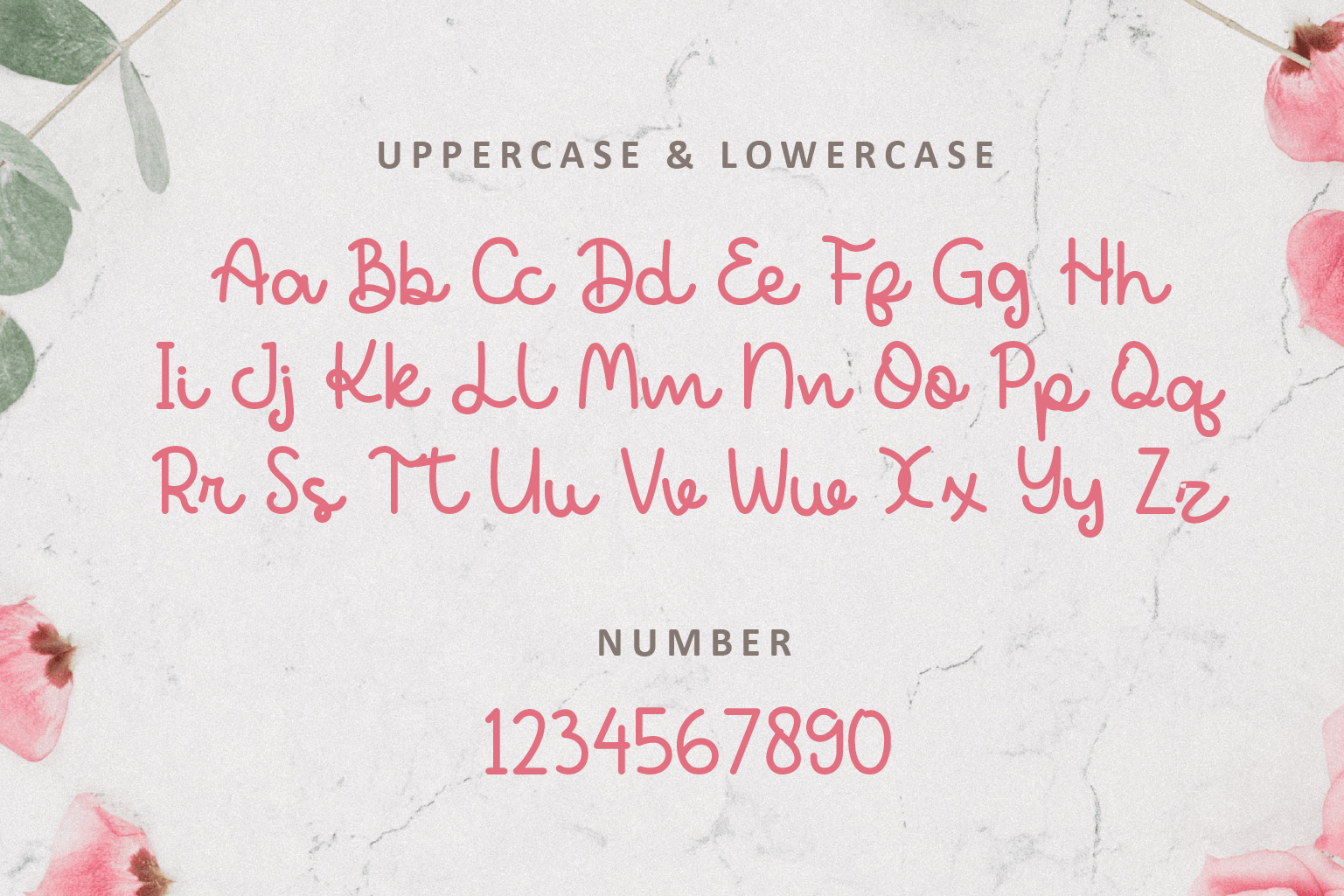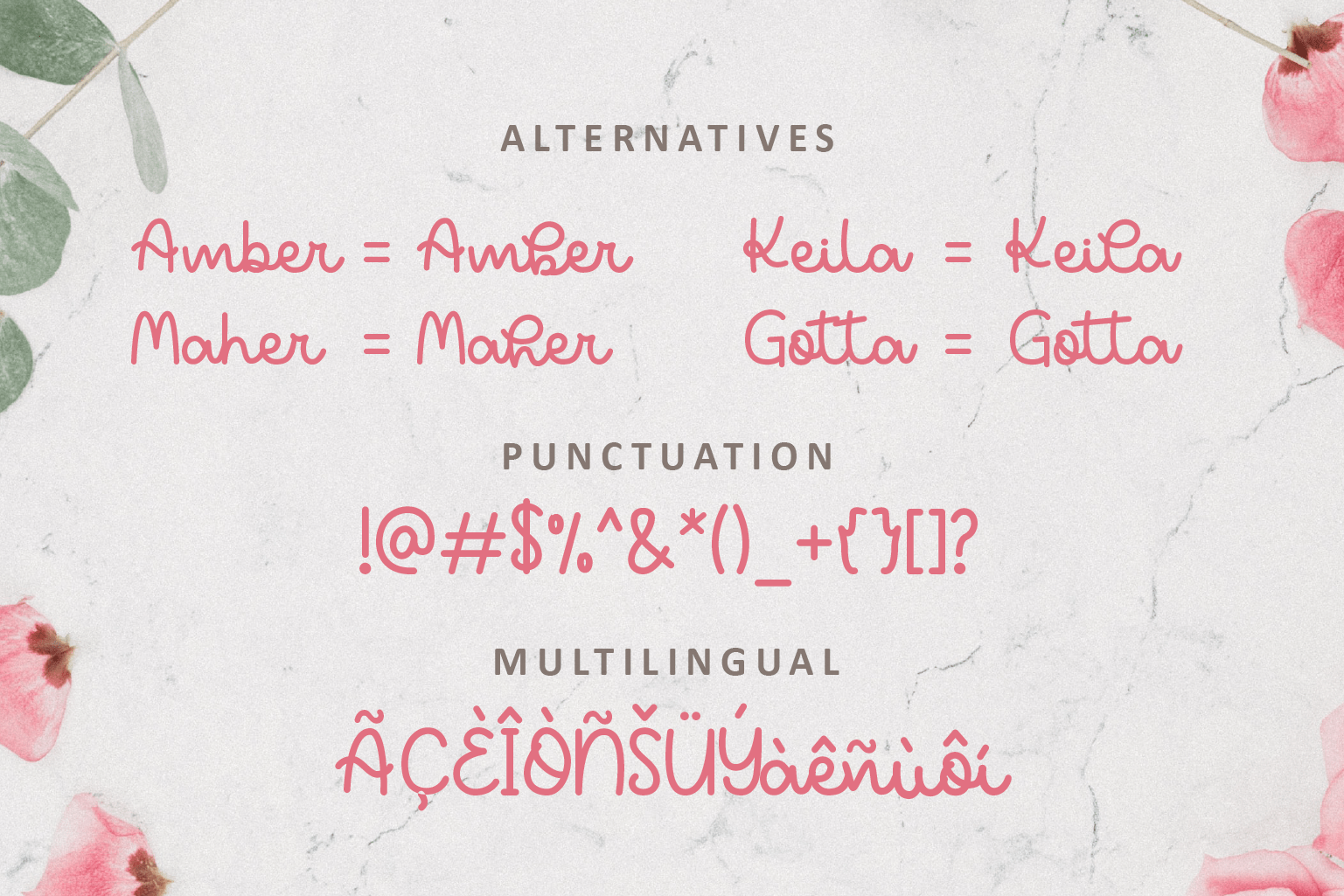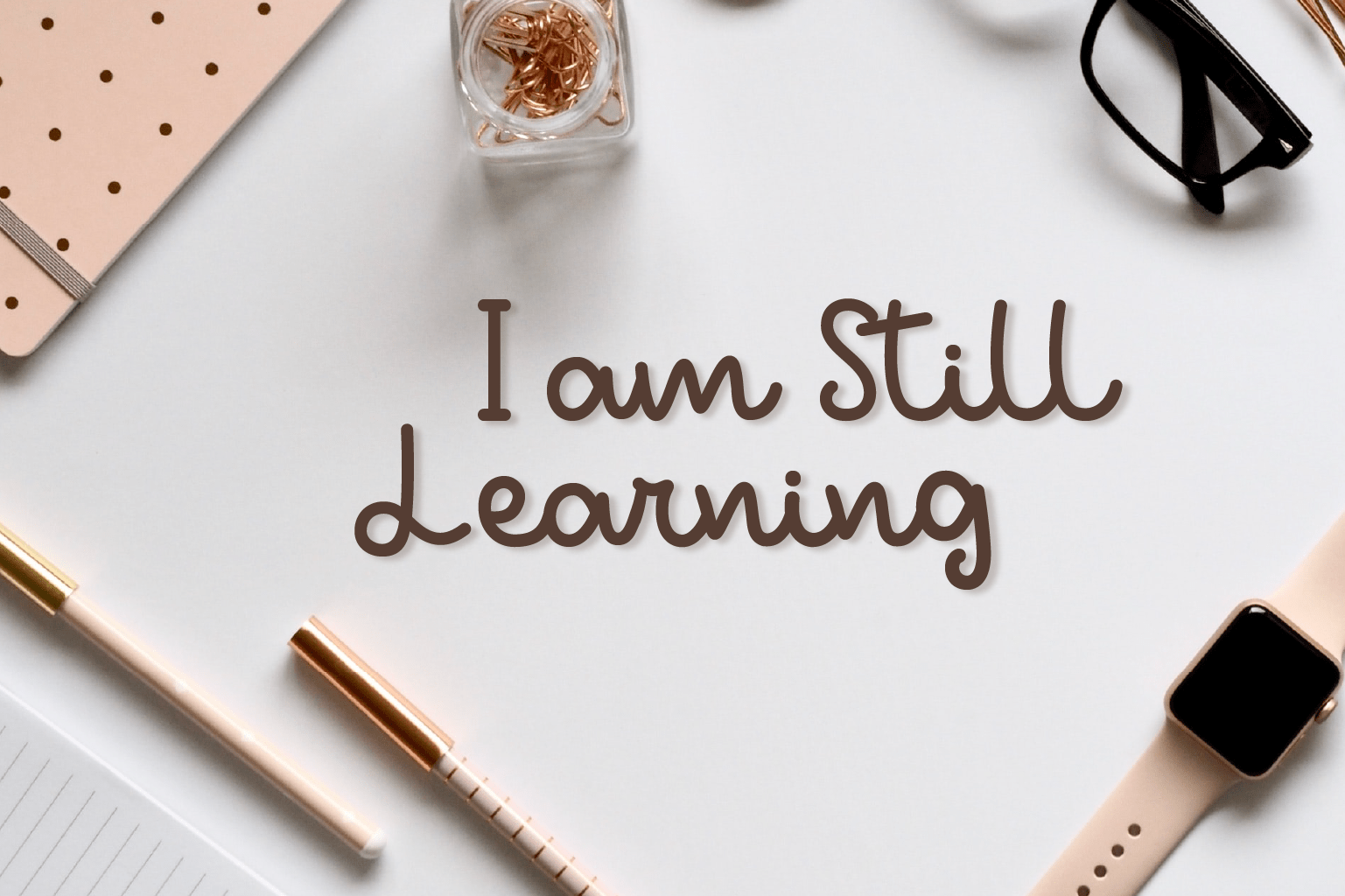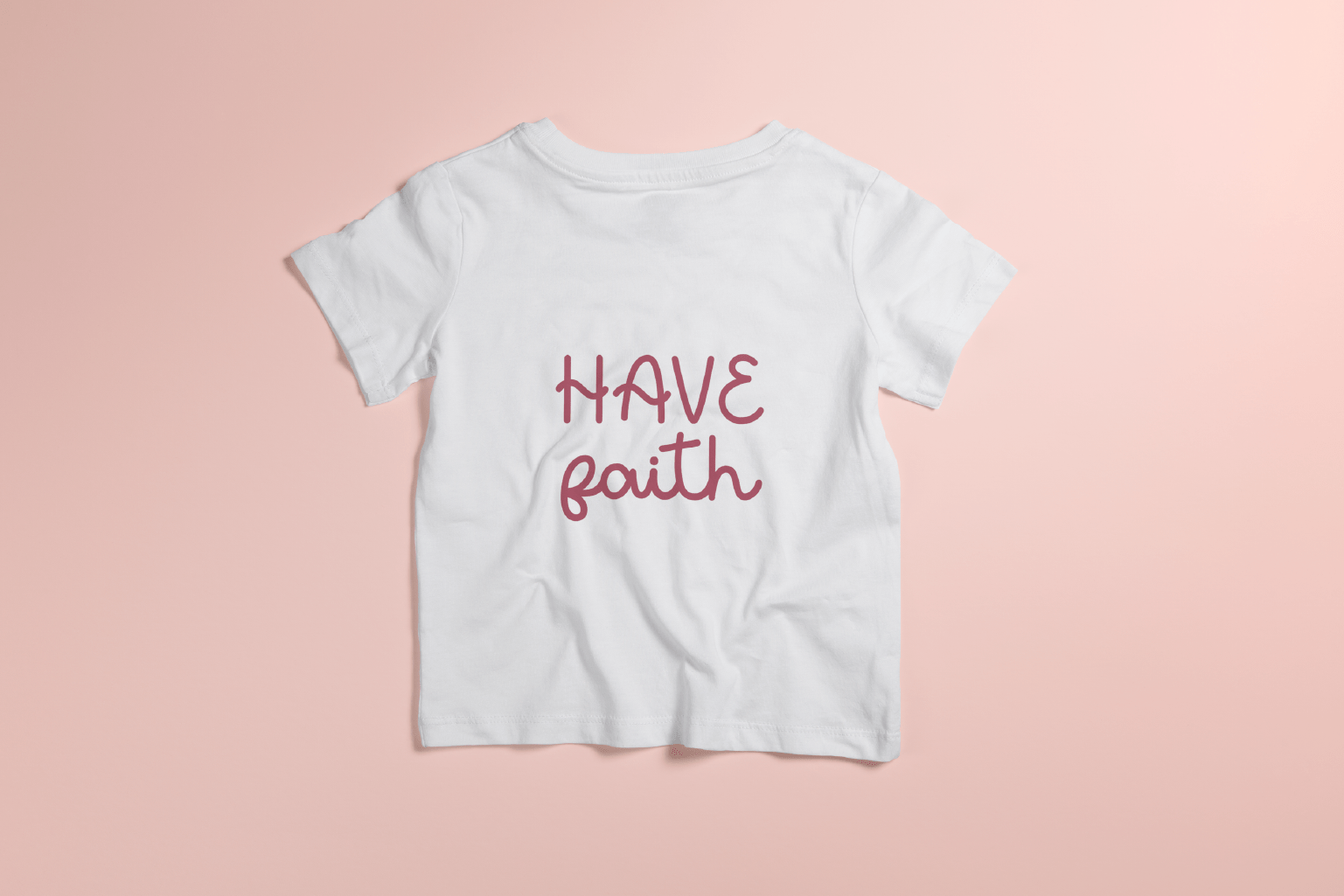
Agatha Kitty Script Font
Agatha Kitty is a flowing handwriting. This font can be applied to non-printed products as well as printed products such as books, packaging, clothing, captions and other branding purposes etc.